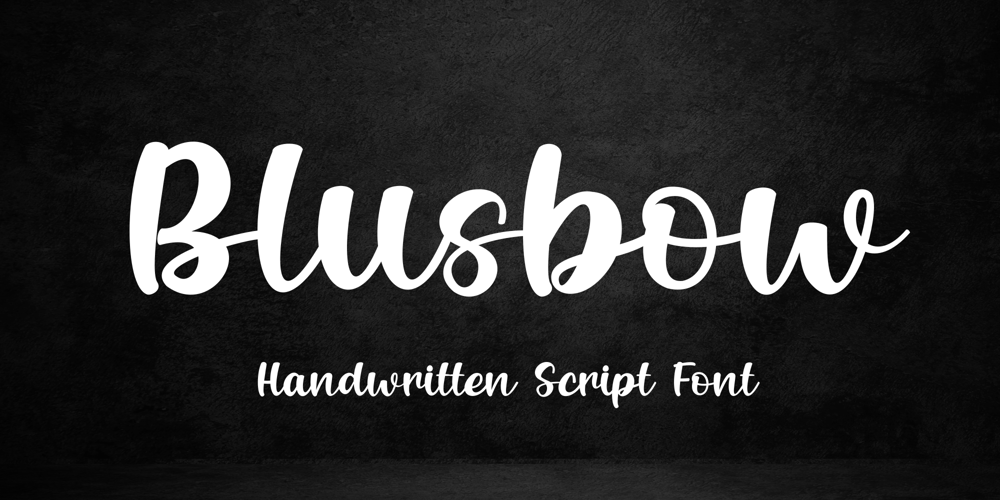
Blusbow Font Family was designed by Randi Irvan and published by Rvandtype. Blusbow contains 1 styles and family package options. Blusbow is a handwritten Script font. It has an elegant and playful look that can be used for logos, branding, invitations, stationery, wedding designs, social media posts, and so much more. Its authentic look will add a personal and realistic feel to your designs.Thank You, i hope you enjoy it.